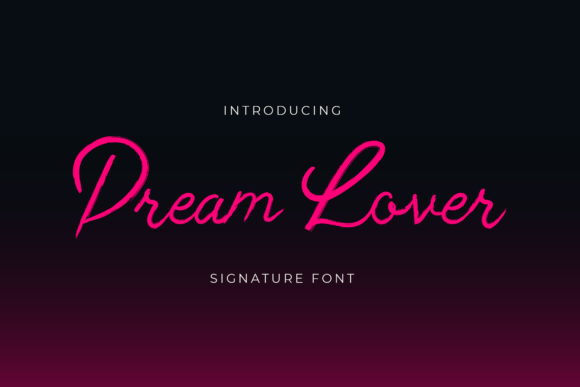
Journey into a realm of elegance and charm with Dream Lover Font, a script font that exudes a romantic allure. Crafted by the skilled hands of uicreativenet, this font is a masterpiece designed to capture hearts and ignite imaginations.
With its delicate strokes and enchanting curves, Dream Lover Font possesses a timeless beauty that transcends trends. Its flowing lines mimic the grace of a handwritten letter, evoking a sense of intimacy and authenticity. Whether you're creating wedding invitations, branding materials, or social media posts, this font will add a touch of magic to your designs.
Unleash the limitless possibilities of Dream Lover Font and watch your creative vision come to life. Its versatility allows you to effortlessly craft logos, posters, flyers, and greeting cards that leave a lasting impression. The font's inherent charm will elevate your designs, captivating your audience and leaving them spellbound.
Explore the endless variations of Dream Lover Font and discover the hidden gems that await you. Experiment with different colors, textures, and backgrounds to create designs that reflect your unique style and personality. Let your creativity soar as you bring your design dreams to fruition.
Don't settle for ordinary fonts that blend into the background. Embrace the beauty and distinction of Dream Lover Font. Its romantic vibe and fashionable flair will set your designs apart, ensuring that they stand out from the crowd. Make a statement, captivate your audience, and leave an unforgettable mark wherever your designs go.